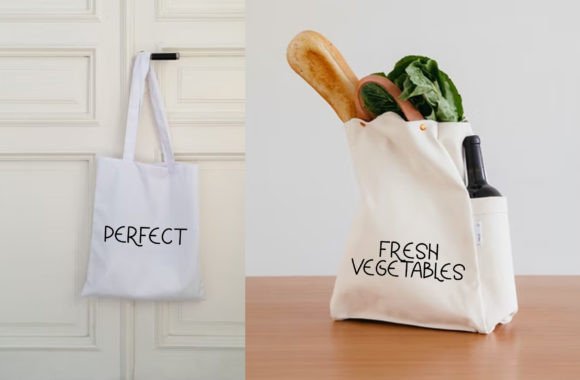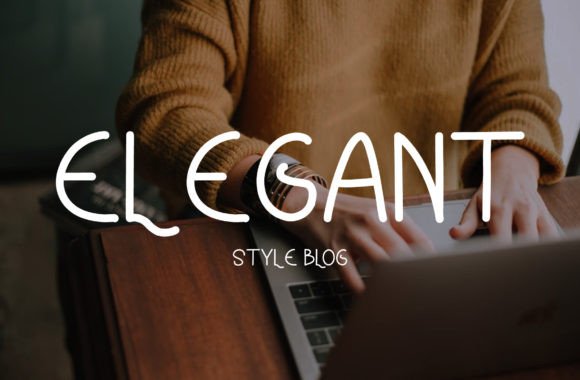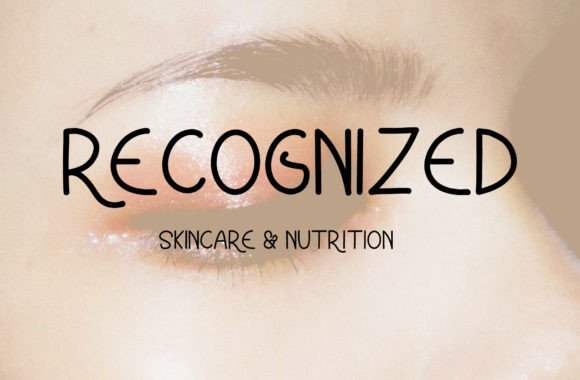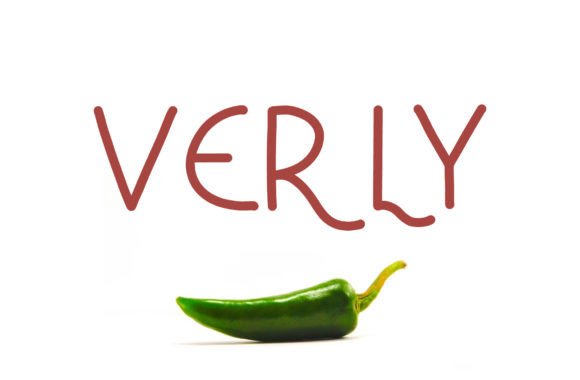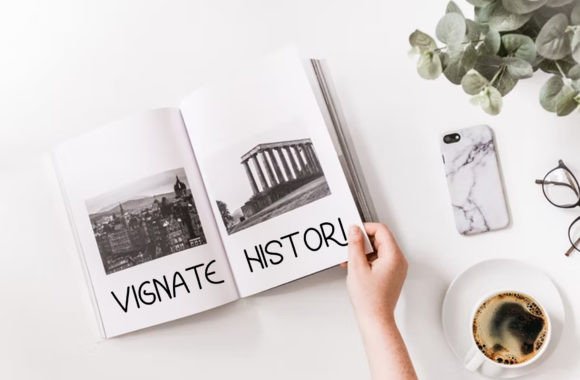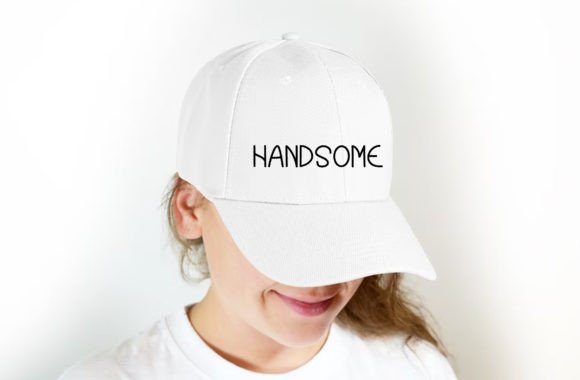
Introduction to Qoghura Font
Have you ever found yourself staring at a blank canvas, waiting for that perfect font to bring your creative project to life? For designers, this moment is a familiar one – a blank slate begging for inspiration. And sometimes, all it takes is one striking font to set the tone for a stunning visual identity.
Enter Qoghura Font, a natural and original sans serif font that’s about to become your go-to design resource. Its clean and minimalistic aesthetic makes it a high-quality choice for any creative project, from branding and packaging to Instagram quotes and magazine headings. With its transparent background, Qoghura Font is the perfect addition to your design toolkit, offering endless possibilities for creative expression.
Whether you’re a seasoned designer or just starting out, Qoghura Font is a valuable asset that’s sure to elevate your designs and leave a lasting impression.
Key Features of Qoghura Font
- Unique, artistic font with a transparent background, perfect for overlaying on images
- Supports a wide range of languages, making it a versatile design resource
- Perfect for designers and artists working on creative projects, from branding to digital art
Honest Review: Qoghura Font
As a designer, I’m always on the lookout for high-quality design resources that can elevate my creative projects. The Qoghura Font caught my attention, and I was excited to give it a try.
- ✨ The font has a unique and elegant design, making it perfect for creative projects that require a touch of sophistication.
- ✨ The font is highly versatile, with a wide range of applications, from titles and headings to body text.
- ⚠️ The font does not support transparent backgrounds, which can be a limitation for designers who require this feature.
- ⚠️ The font is not as extensive as some other popular fonts, with a limited character set.
Overall, I’m impressed with the Qoghura Font’s unique design and versatility. While it has some limitations, it’s still a valuable addition to any designer’s toolkit. If you’re looking for a high-quality font to add some flair to your creative project, I’d definitely recommend giving the Qoghura Font a try.
How to Use Qoghura Font
For the most out of Qoghura Font, experiment with different font sizes, colors, and effects. Use the font in combination with other design elements to create visually appealing designs. Common use cases include logo design, branding materials, and marketing materials.
Q4: Can I modify the Qoghura Font to suit my specific design needs?